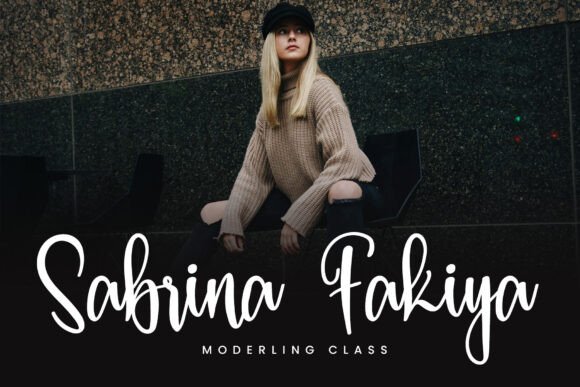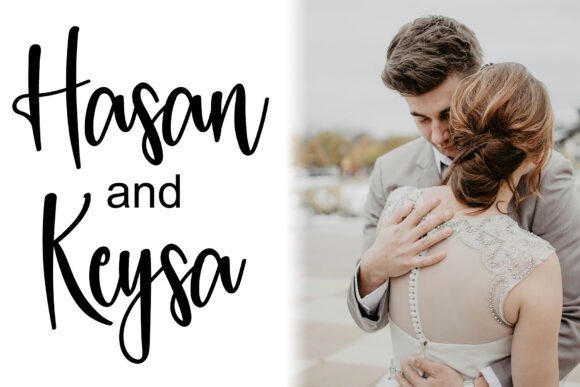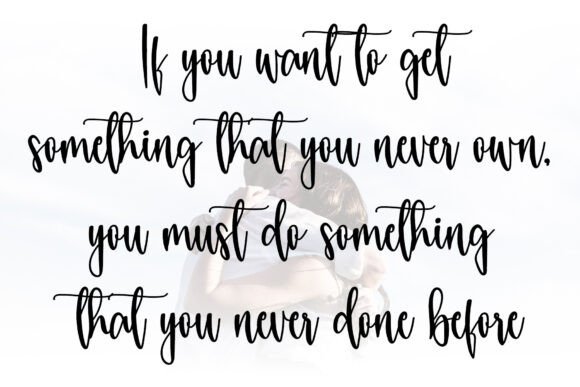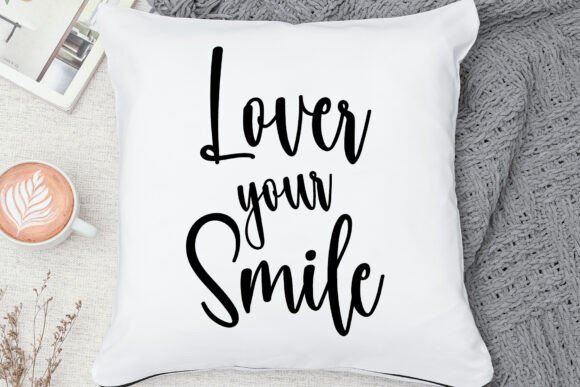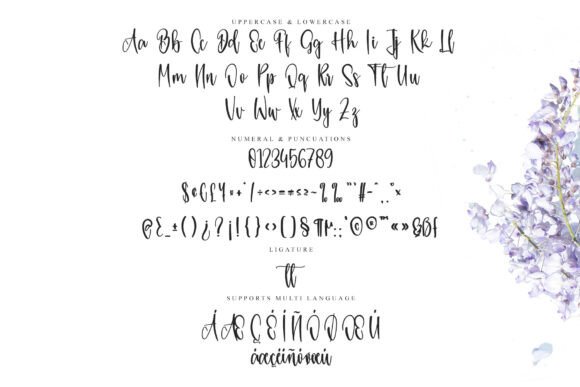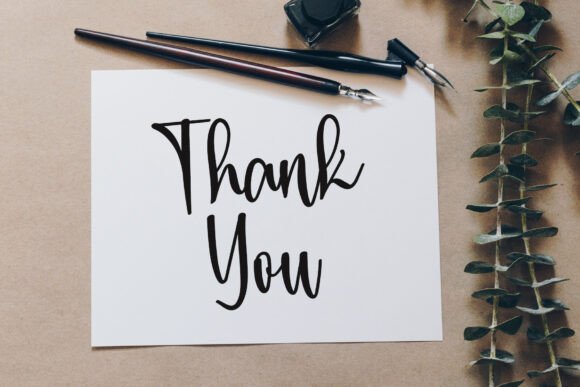
Introduction to Perfect Graduation Font
The moment of truth arrives when you finally finish a creative project, and you need a font that exudes class to match your masterpiece. For many designers, this moment is the graduation day, where their hard work and dedication are recognized. It’s a moment that deserves a perfect font to commemorate it – a font that’s as elegant as it is powerful.
That’s where the Perfect Graduation Font comes in – a design resource that combines the beauty of script handwriting with a bold and timeless vintage touch. This font is a game-changer for designers who want to create a sophisticated yet unique impression.
Key Features of Perfect Graduation Font
- High-quality design: Perfect Graduation Font is crafted with precision and attention to detail, making it a valuable resource for any creative project.
- Transparent background: The font’s transparent background allows for easy layering and customization, making it perfect for designers who want to create unique and eye-catching designs.
- Large character set: This font includes a large character set, including uppercase and lowercase letters, numbers, and special characters, making it a versatile choice for a variety of design projects.
- High-resolution design: Perfect Graduation Font is designed at 300 DPI, ensuring that it looks crisp and clear even at large sizes.
- Perfect for graduation projects: This font is specifically designed to commemorate graduation milestones, making it a thoughtful and creative way to celebrate this special occasion.
Honest Review: Perfect Graduation Font
I recently stumbled upon the “Perfect Graduation Font” while searching for design resources for a creative project. The font is available for a free download, which was a major plus for me. The font’s transparent background made it easy to layer over other elements in my design.
- ✨ High-quality design: The font looks professional and well-designed.
- ✨ Versatility: It can be used for a variety of creative projects, from graduation announcements to party invitations.
- ⚠️ Limited customization options: The font is a bit plain and doesn’t offer many customization options.
- ⚠️ Not suitable for complex designs: The font may not be the best choice for complex, layered designs.
Overall, I was pleased with the “Perfect Graduation Font”. While it may not offer the most customization options, it’s a great choice for simple designs and is available for a free download, making it a valuable resource for designers.
Perfect Graduation Font
Designing with Perfection
The Perfect Graduation Font is a versatile design resource ideal for various creative projects, including graduation invitations, certificates, and decorations. It’s available for free download with a transparent background, making it easy to integrate into any design.
For the best results, use the Perfect Graduation Font in high-quality designs, and don’t be afraid to experiment with different font sizes, colors, and styles.
The Perfect Graduation Font is ideal for:
- Graduation invitations and announcements.
- Graduation certificates and diplomas.
- Graduation decorations and banners.
When compared to Perfect Graduation Font, Great Vibes Font has a more refined and elegant appearance, making it suitable for high-end designs. Its versatility and wide range of uses make it an excellent alternative to Perfect Graduation Font.
Yes, the Perfect Graduation Font has a transparent background, allowing you to use it on various backgrounds and designs without any issues. This feature makes it ideal for designers who want to create visually appealing and creative projects.
What is the recommended font size for the Perfect Graduation Font?
The recommended font size for the Perfect Graduation Font is between 24-48 points, depending on the design and layout of your project. However, you can experiment with different font sizes to achieve the desired effect.